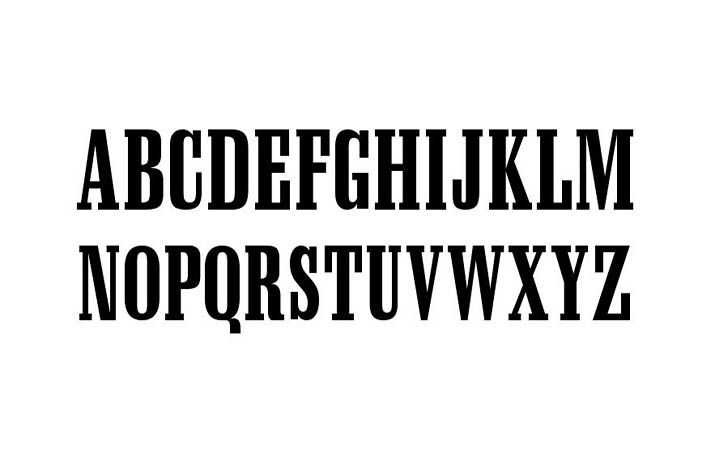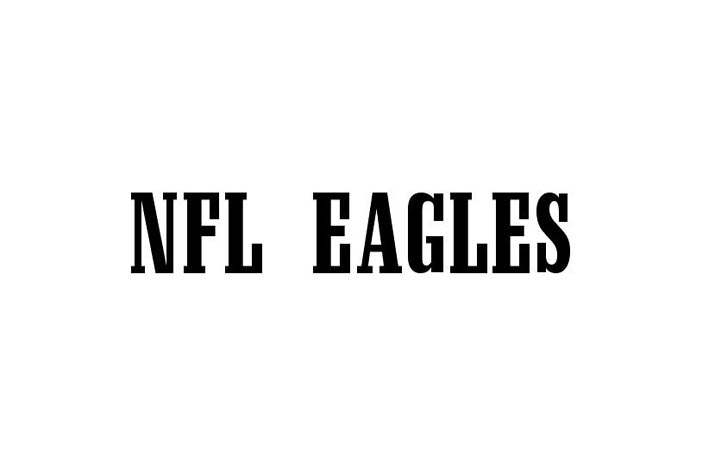
NFL Eagles Font is an elegant display typeface that comes with tall and condensed letters. It’s available for free on FontyFonts. Get it now.
The designer has to use solid strokes with short, angled lines at the end of the stroke to make it displayable. So each letter is uniquely designed just to fill and maintain space.
If you are looking for a font with capital letters to create large titles that can be seen from afar, this is the font for you. Try it out for sports jersey numbers, logos, posters, banners, headers, titles, flyers, and more.
Style: | Display, Logo, Fancy |
- With its stunning design, you can create special event cards, business cards, product designs, product packaging, unique signs, website development, book covers, product design, special event cards, game graphics, paragraphs, web content, and social media covers. can do Posters can be booked. , websites, headers, banners, blogs, ads, brochures, signs, headers, banners, product design, and more.